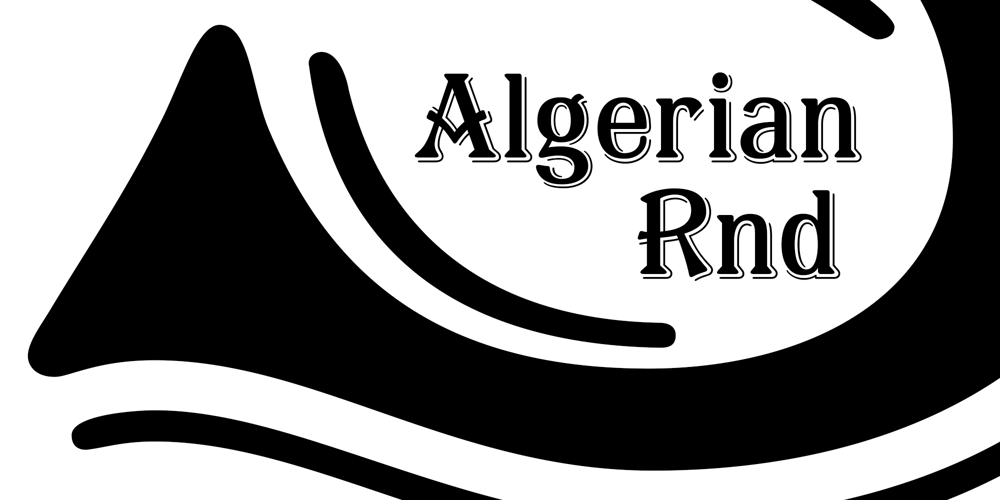
Algerian Rnd Font Family was designed by Michael Hagemann and published by FontMesa. Algerian Rnd contains 32 styles and family package options. It’s finally here, Algerian Rnd is an all new version of our Algerian Mesa font with rounded soft corners and serifs.Imagine the impact Algerian Rnd will have on your product label and packaging.Algerian Rnd is a new timeless beauty that you’ll find many uses for in your logos and advertising.Algerian Rnd is for every generation, put it to work in your next project, you’re going to love this font.Algerian Rnd does include some alternate glyphs which you’ll need an Opentype aware application to access the alternates in Algerian Rnd.Algerian Rnd is ideal for product logos, labels, packaging, t-shirt designs and other merch.Algerian Rnd is a trademark of FontMesa LLC